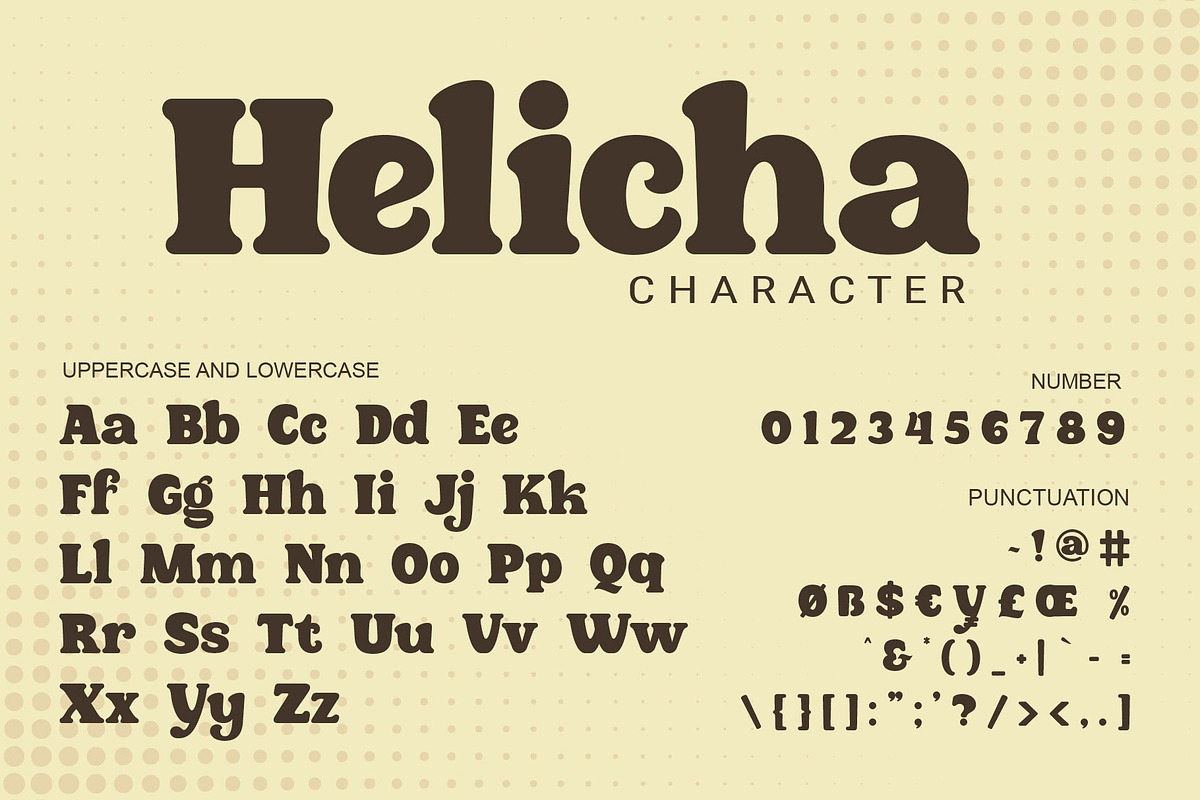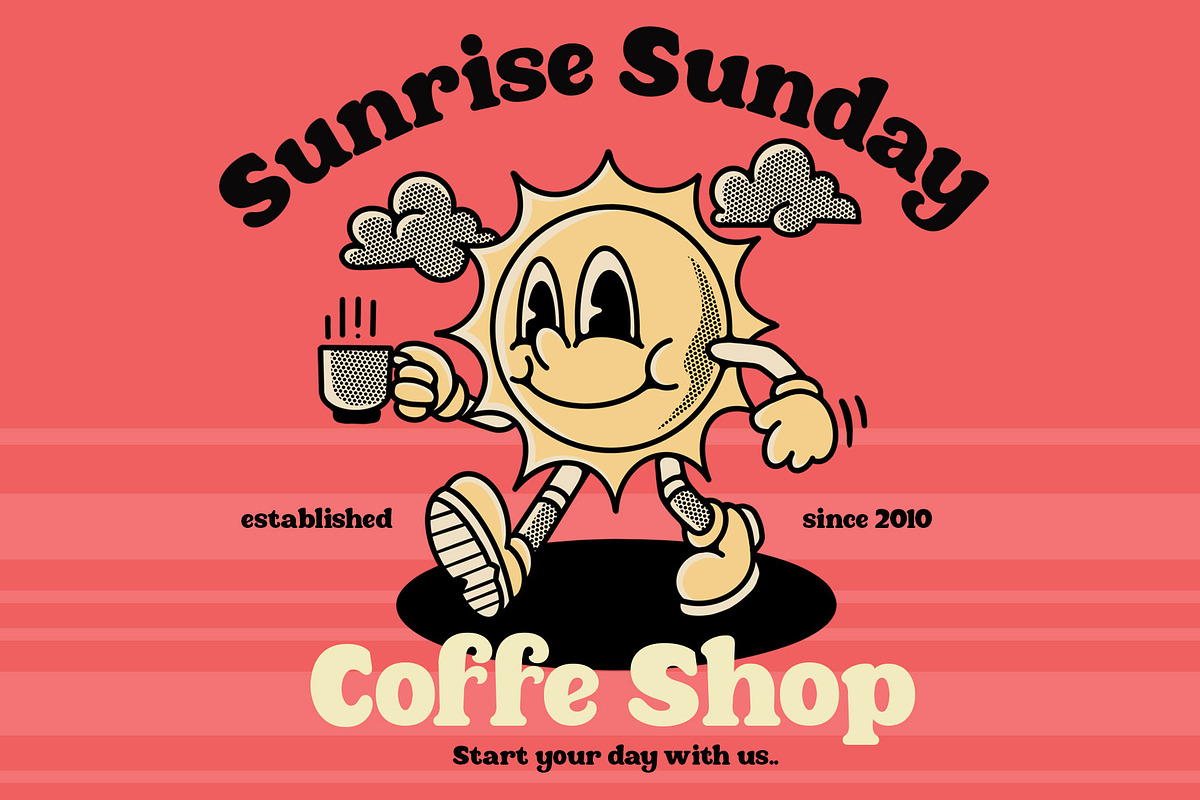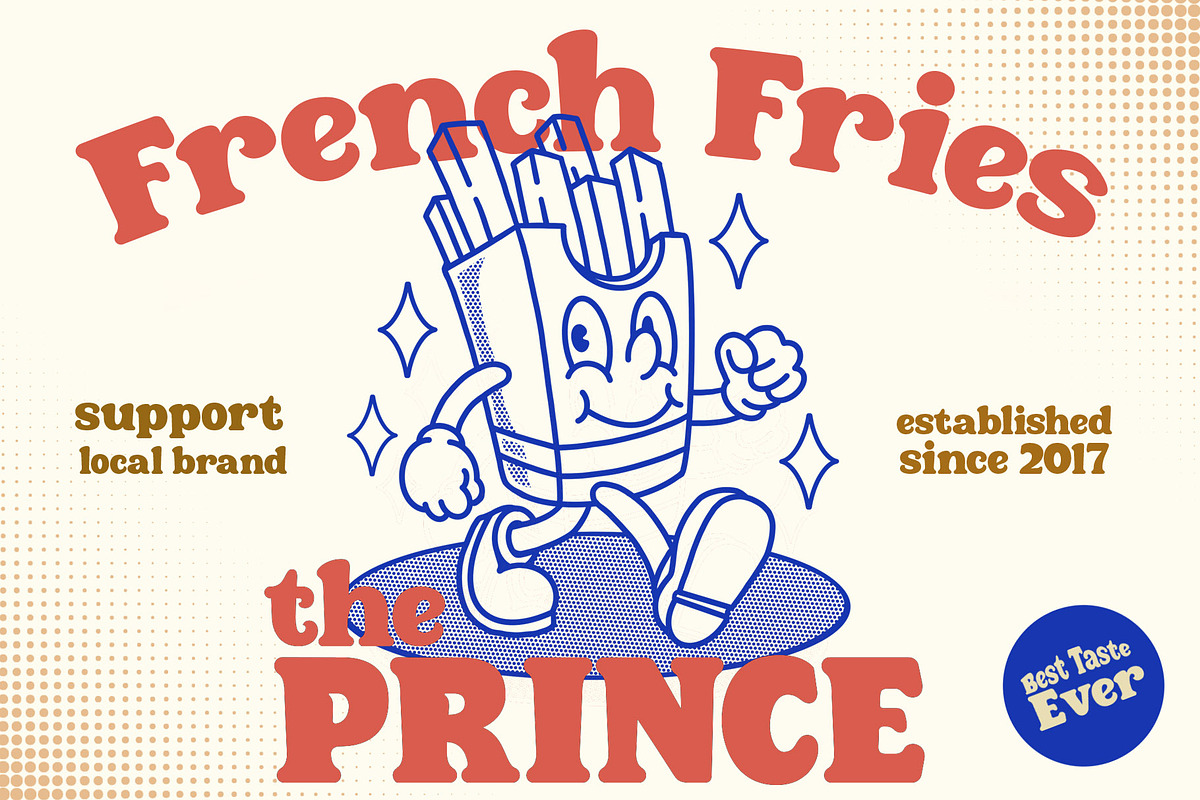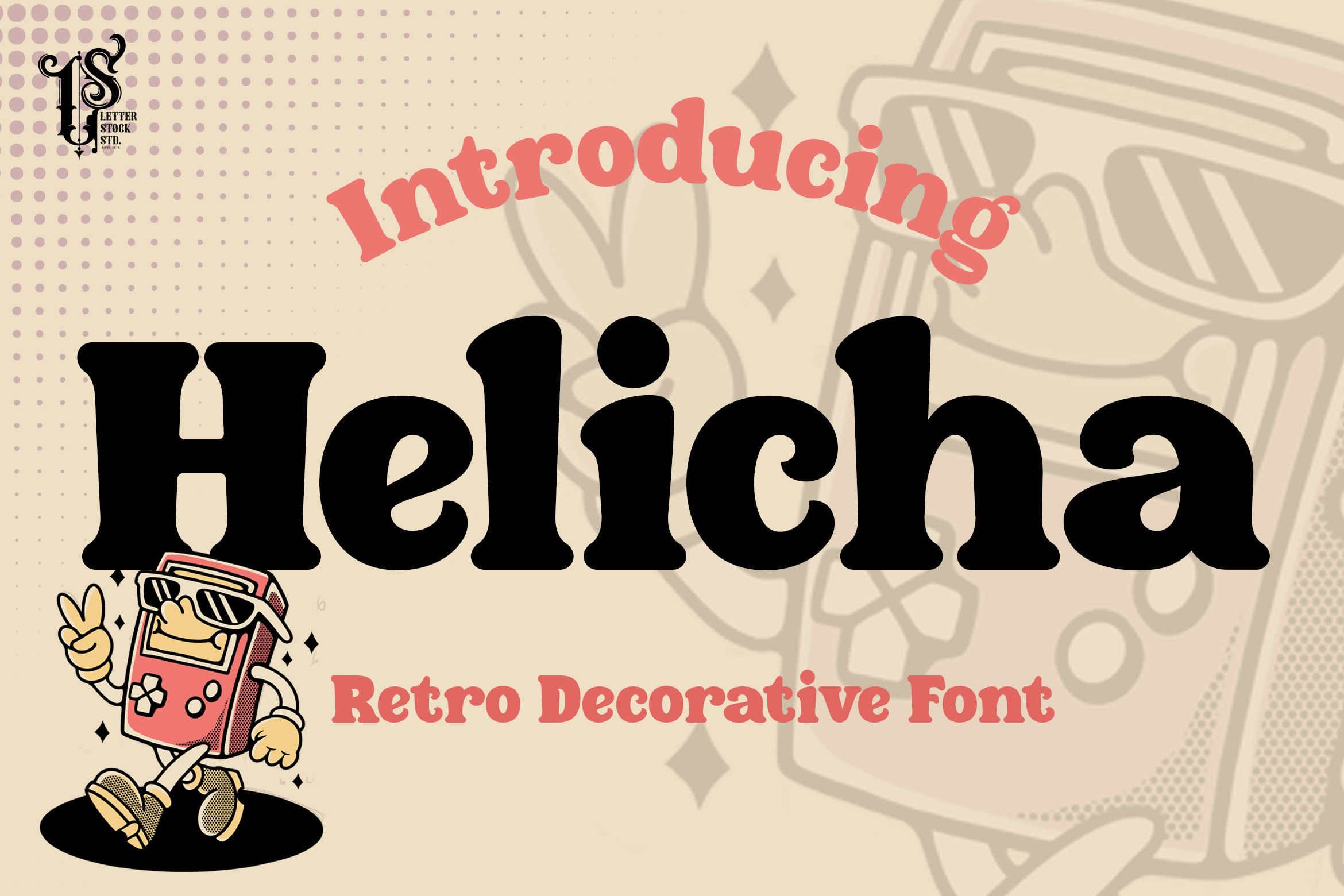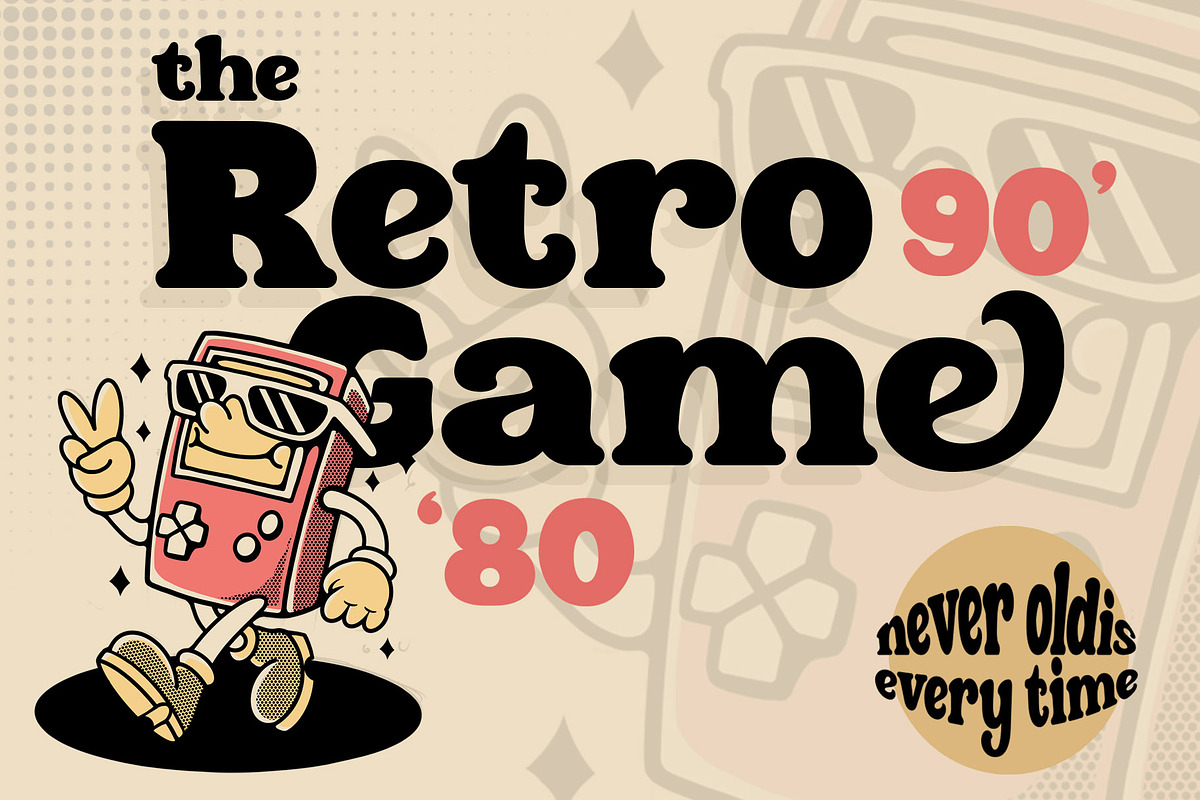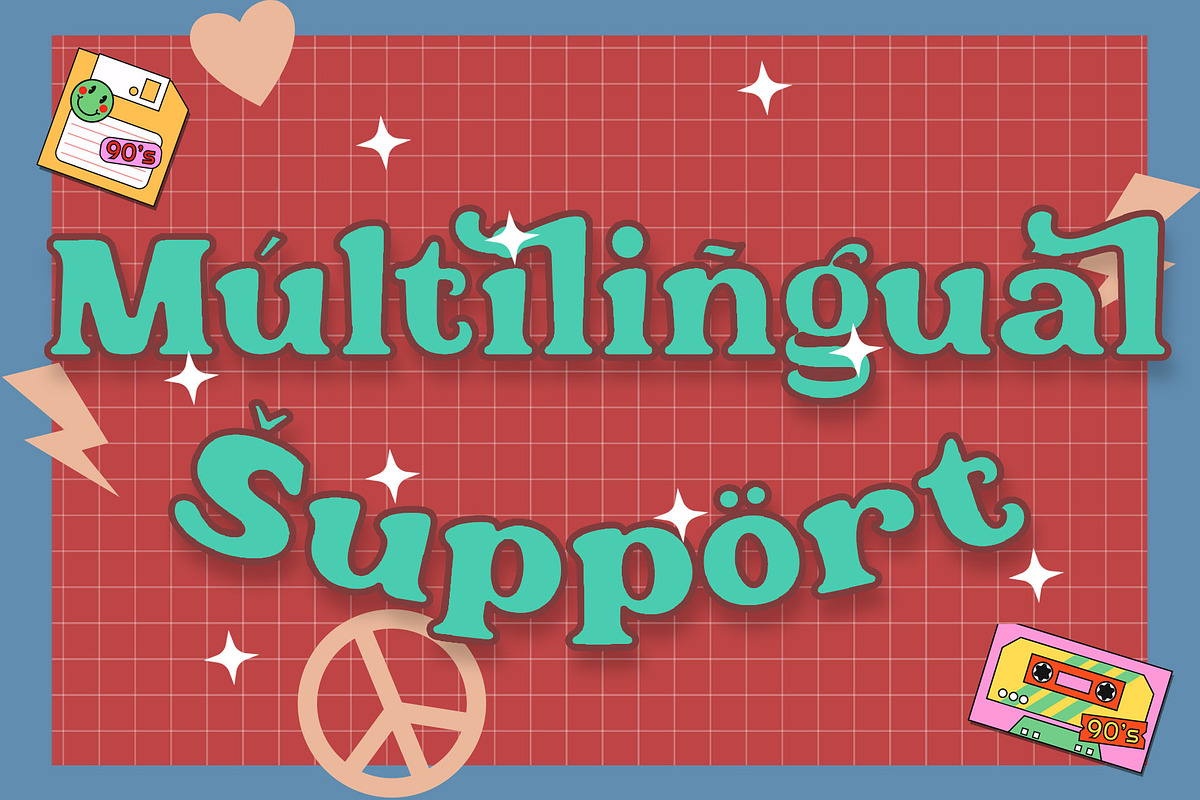
Helicha - Retro Font
Introducing Helicha Retro Font, a stylish and vintage-inspired typeface perfect for adding a retro vibe to your designs. This font includes uppercase and lowercase letters, numbers, and special characters, and works great for headlines, posters, t-shirt designs, and more. With its unique and nostalgic feel, this font is sure to make your designs stand out and grab attention. Add a touch of nostalgia to your next project with Retro Font.